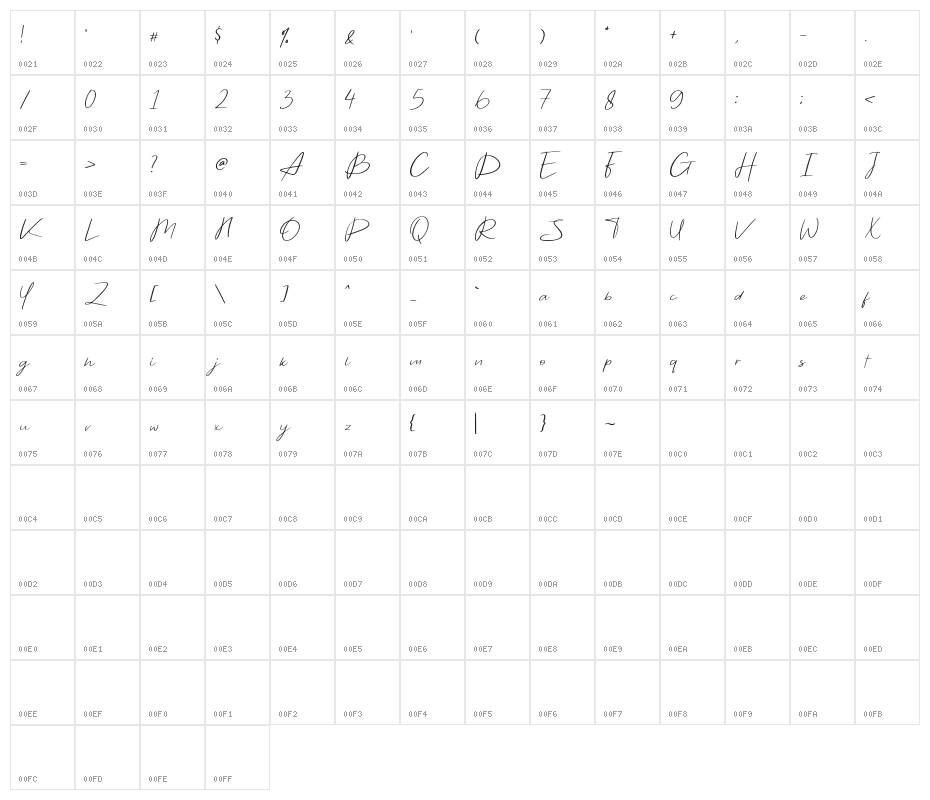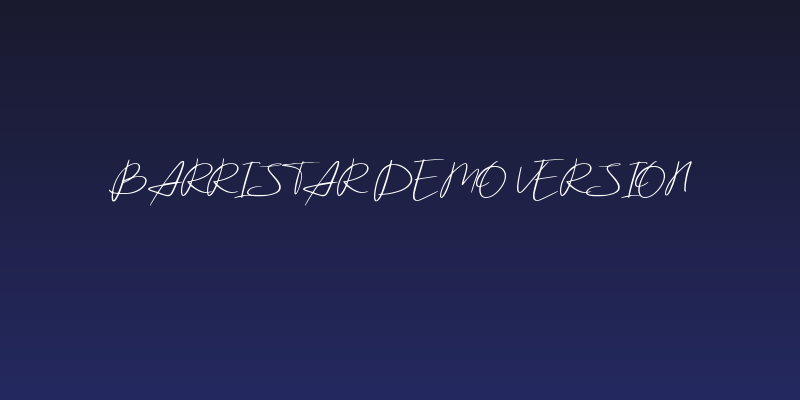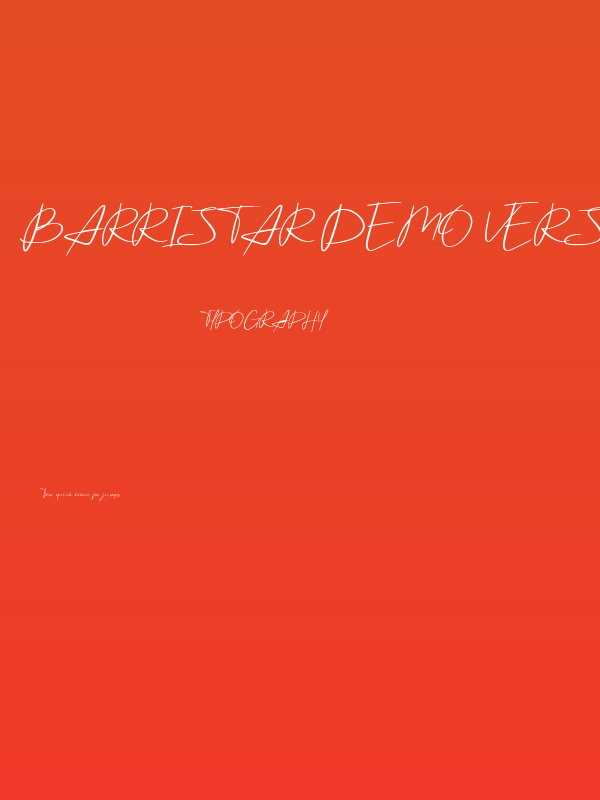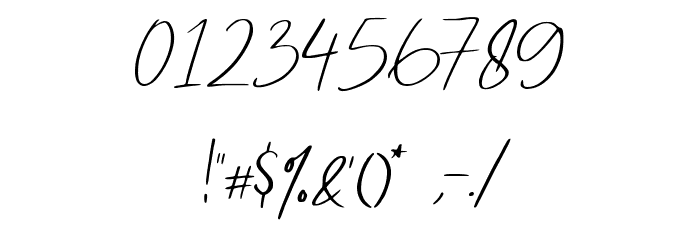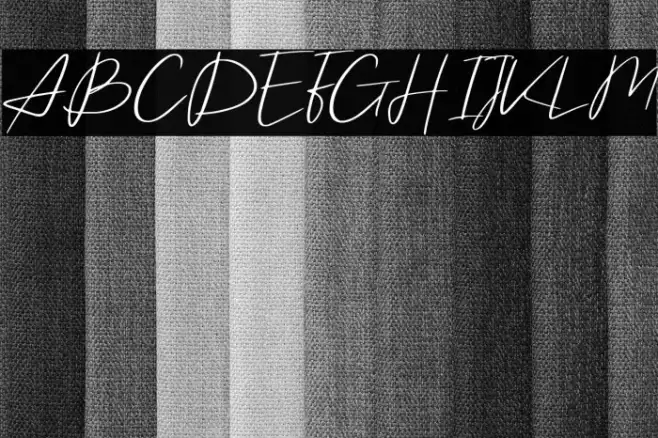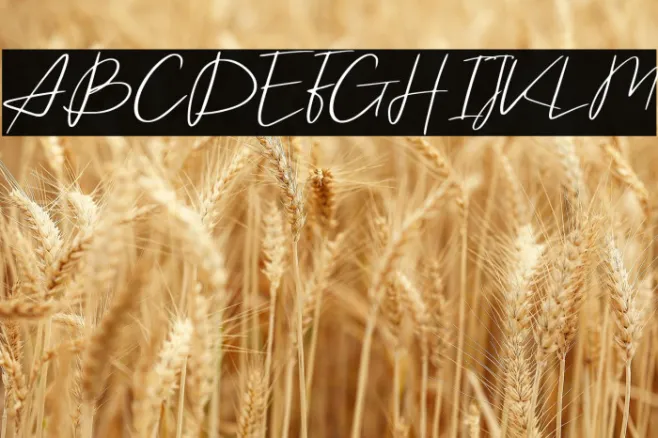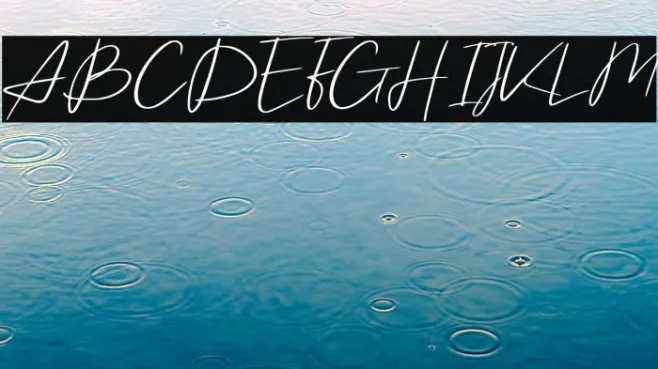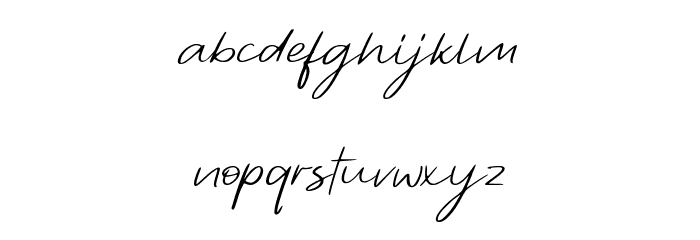
Barristar Demo Version Font
Barristar Demo Version Description
This font features a flowing, handwritten style that exudes elegance and sophistication. The characters are crafted with a natural, cursive flair, giving them a personal and artistic touch. The uppercase letters are bold and sweeping, while the lowercase letters maintain a consistent, fluid motion. Numbers and special characters are designed with the same attention to detail, ensuring a cohesive look across all text. The strokes are thin, with a medium contrast that enhances readability while maintaining the font's delicate appearance. This font is perfect for projects that require a personal, yet polished touch.